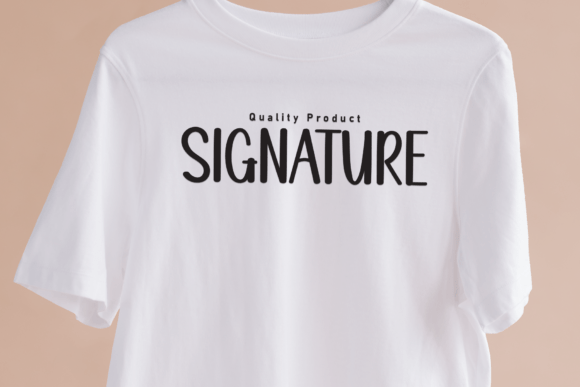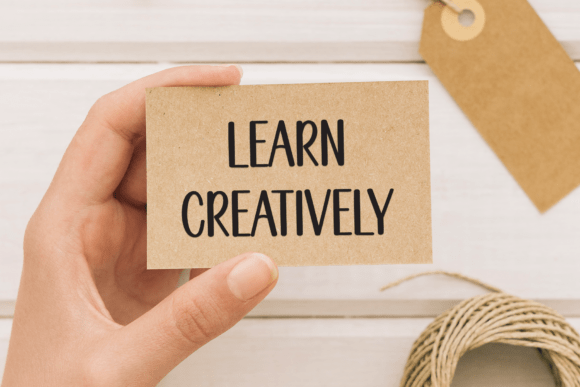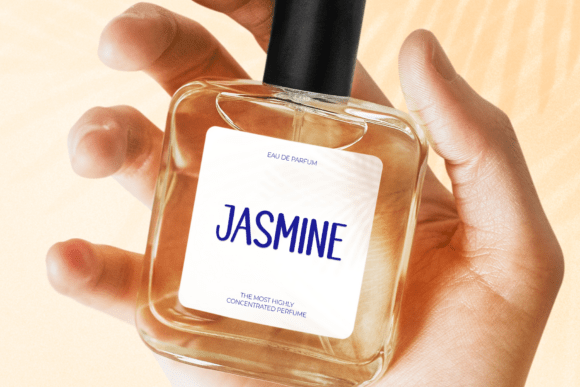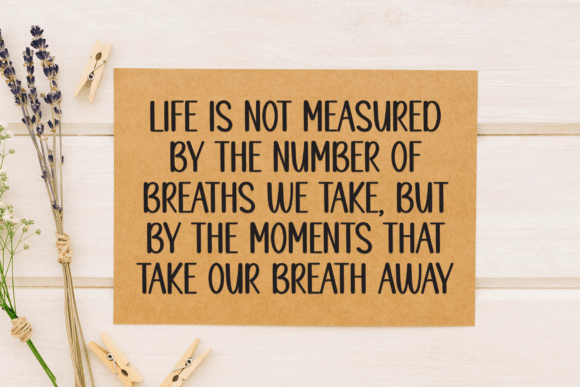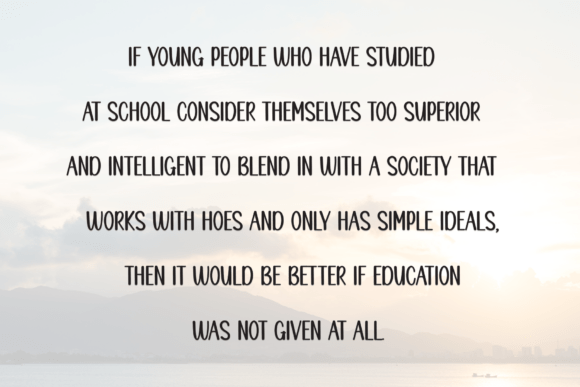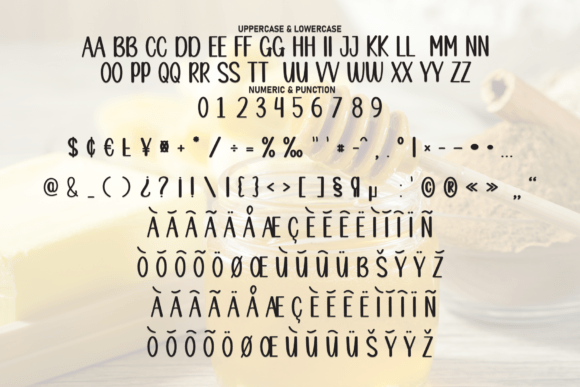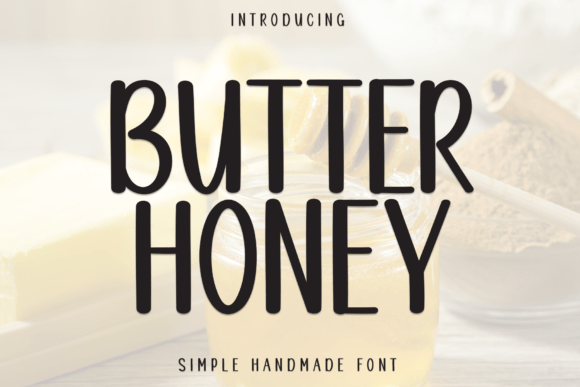
Introducing Butter Honey Font: The Sweetest Addition to Your Design Toolkit
Are you on the hunt for a font that exudes warmth, playfulness, and a dash of whimsy? Look no further than Butter Honey Font, a handcrafted display font that’s sure to captivate your audience. With its perfect blend of endearing charm and charisma, this delightful typeface is ideal for designers and crafters seeking to add a personal touch to their creations.
The Story Behind Butter Honey Font
Butter Honey Font is more than just a collection of letters – it’s a labor of love crafted with precision and passion. Designed to evoke the feeling of warmth and comfort, this font is perfect for creating unique and personalized wedding invitations, greeting cards, and other design projects that require a touch of sweetness.
What Makes Butter Honey Font So Special?
- Handcrafted with love: Each character in Butter Honey Font has been carefully crafted to ensure a unique and personalized feel.
- Perfect blend of playfulness and charisma: This font seamlessly infuses a playful spin into every character, making it perfect for designs that require a touch of whimsy.
- Multifaceted and versatile: Use Butter Honey Font to create a wide range of designs, from wedding invitations and greeting cards to branding materials and more.
- Easy to use: With its clean and simple design, Butter Honey Font is easy to read and works beautifully in a variety of contexts.
Uses for Butter Honey Font
Butter Honey Font is incredibly versatile, making it perfect for a wide range of design projects. Here are just a few ideas to get you started:
- Wedding Invitations: Create uniquely personalized wedding invitations that set the tone for a romantic and whimsical celebration.
- Greeting Cards: Add a touch of warmth and personality to your greeting cards, making them truly special and memorable.
- Branding Materials: Use Butter Honey Font to create a cohesive brand identity that exudes playfulness and charm.
- Social Media Graphics: Add a dash of whimsy to your social media graphics, making them stand out in a crowded feed.
Tips for Getting the Most Out of Butter Honey Font
To truly unleash the creative potential of Butter Honey Font, here are a few tips to keep in mind:
- Experiment with colors: Play around with different color combinations to find the perfect match for your design.
- Mix and match: Combine Butter Honey Font with other fonts to create a unique and visually appealing design.
- Don’t be afraid to get creative: With its playful and whimsical nature, Butter Honey Font is perfect for designs that require a bit of experimentation and creativity.
Butter Honey Font is a true gem in the world of typography, offering a unique blend of playfulness, charm, and warmth. Whether you’re a designer, crafter, or simply someone looking to add a personal touch to your creations, this handcrafted display font is sure to captivate your audience. So why wait? Unleash your artistic side and discover the sweetest addition to your design toolkit – Butter Honey Font.